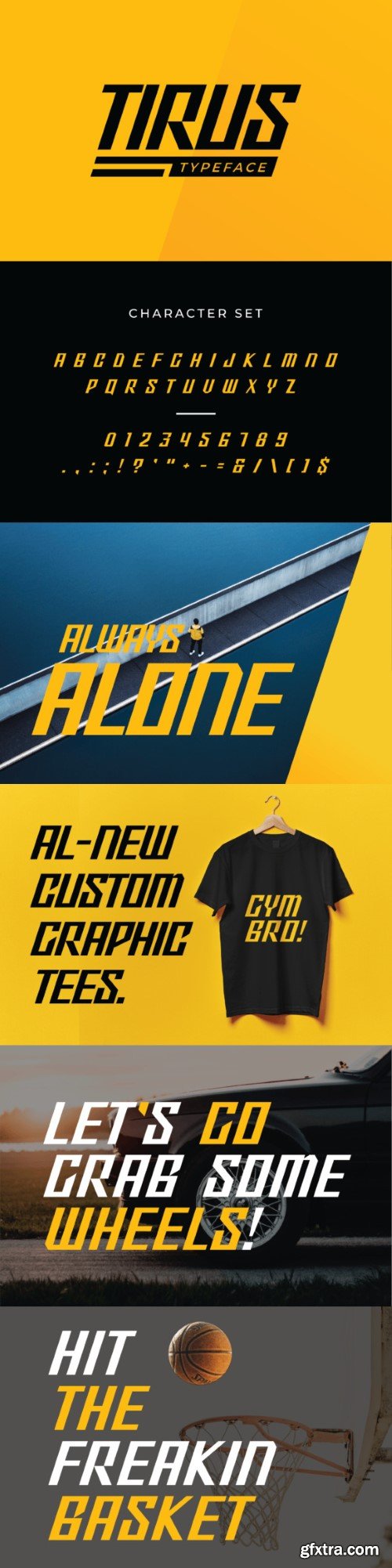
图里斯字体
Tirus is a next-gen futuristic font with a modern and edgy appearance. It is perfect for, posters, t-shirt designs, logo designs, social media posts, etc. You can create some incredible wordmark logos with this sporty condensed font.